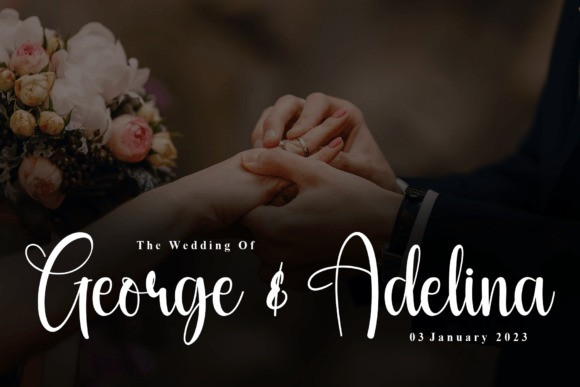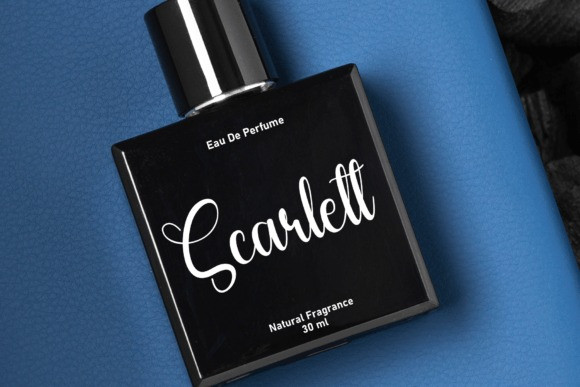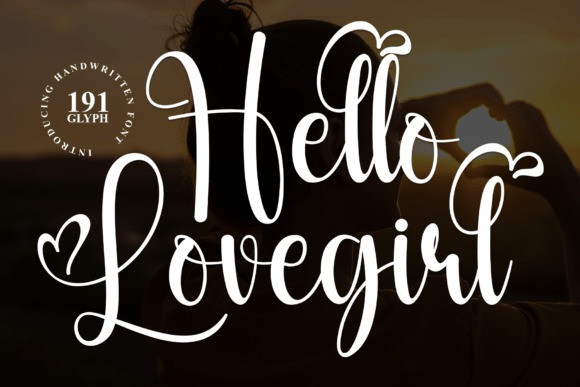
Hello Lovegirl Font
Hello Lovegirl Font is an enchanting handwritten font. This versatile script font has a wide spectrum of applications ranging from greeting cards to headlines and is guaranteed to add a romantic feel to your next project.